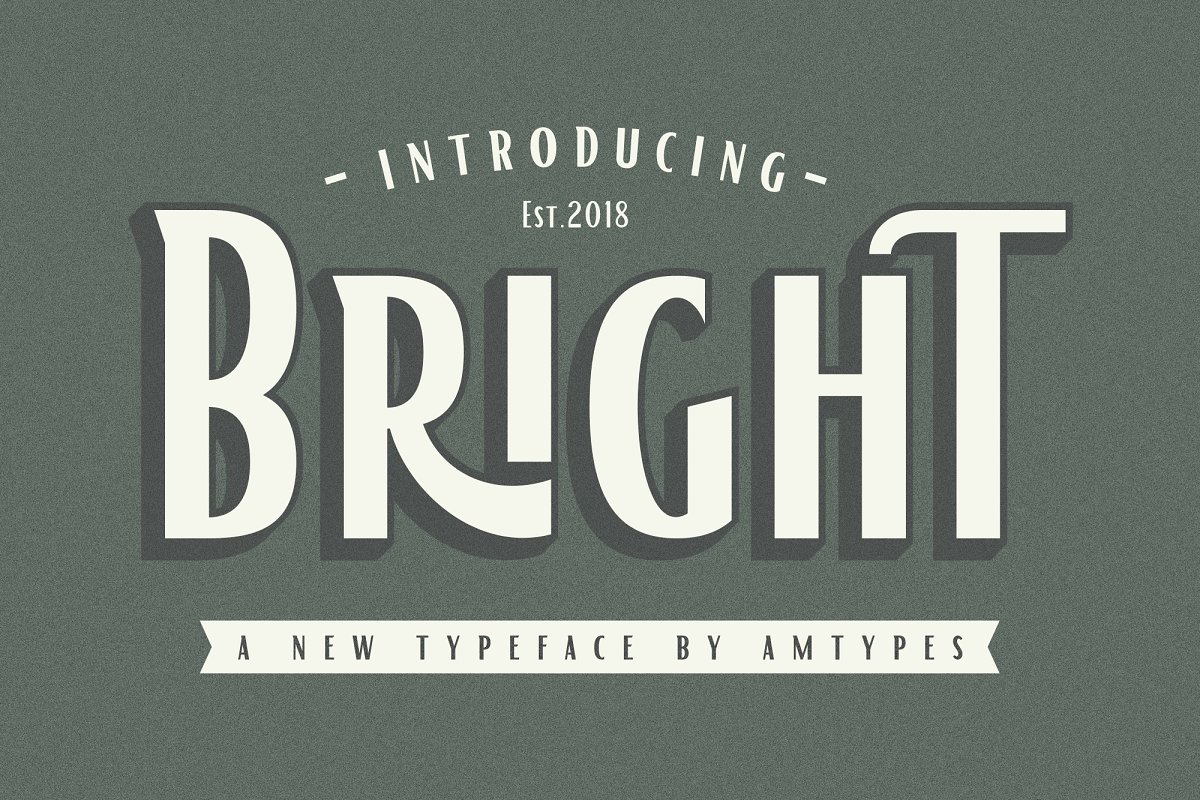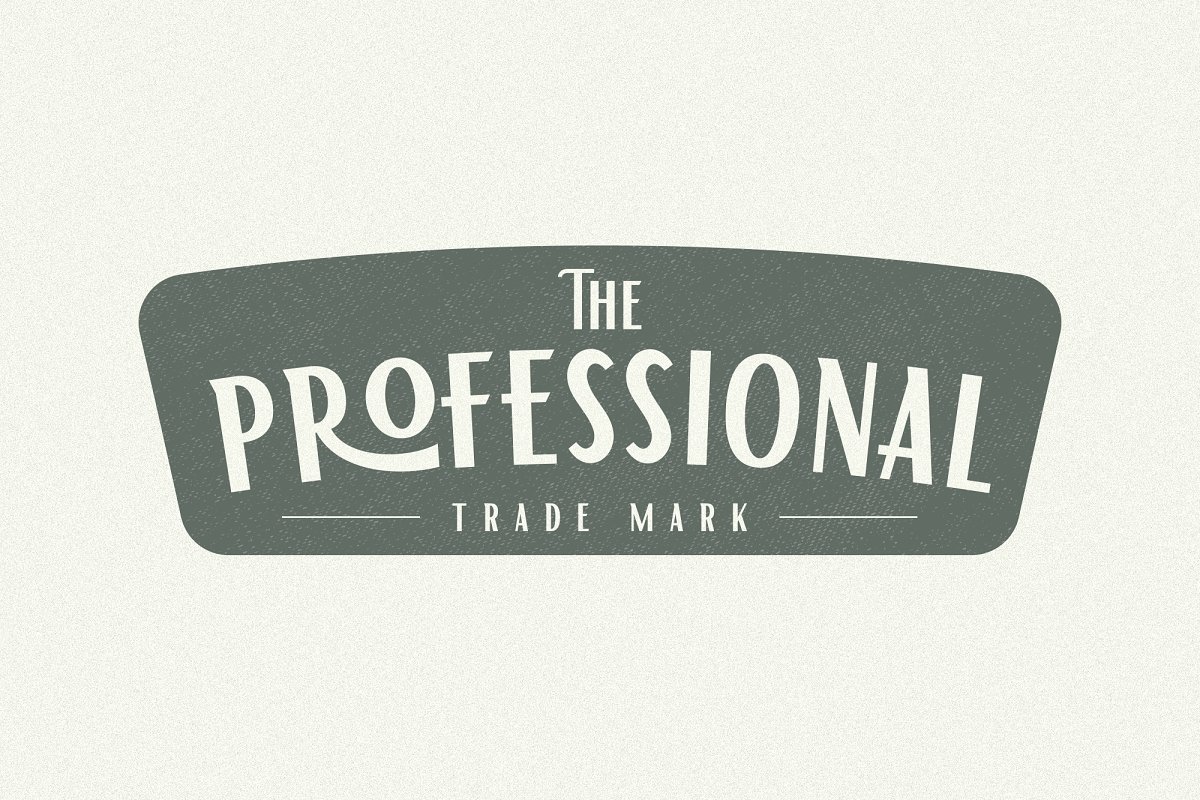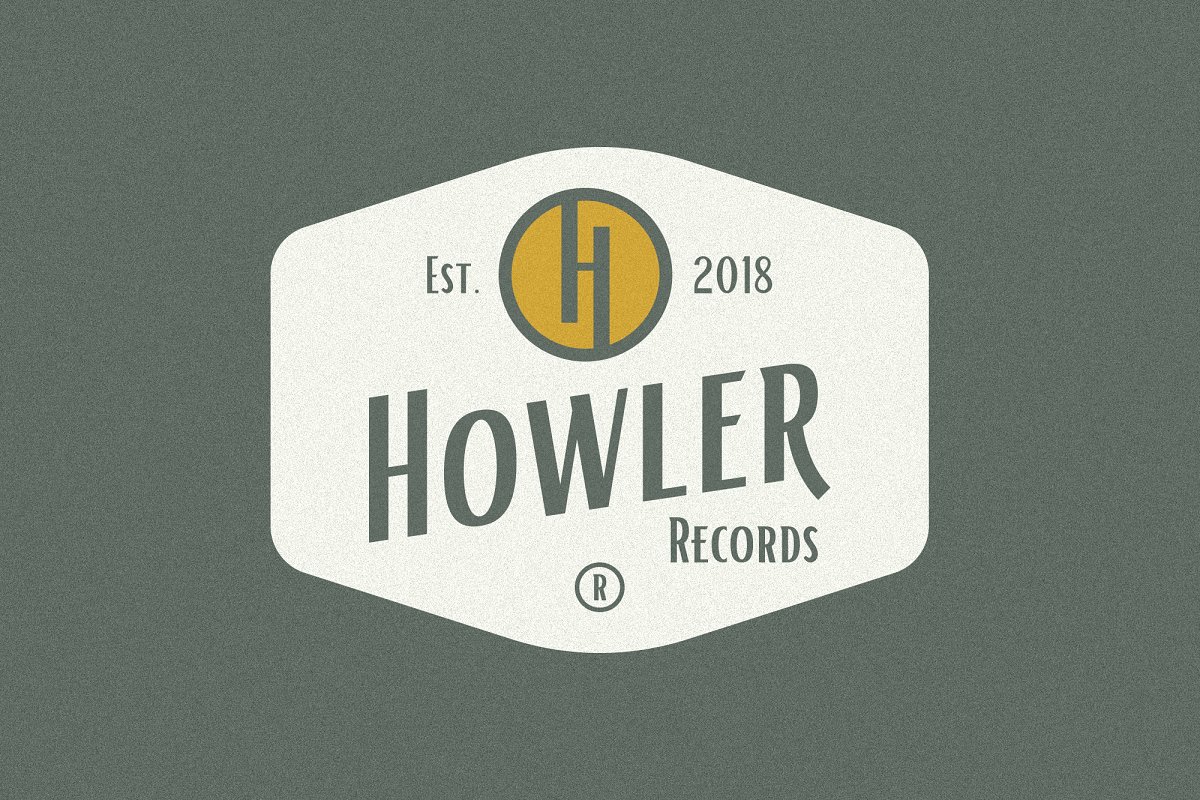
About the Bright Font
Bright is a sans serif typefaace with classic touch, This font has alternate characters, ligatures and multi language support, Bright font is perfect for the classic design logo, branding or product packaging, signage and more other creative project, In order to use alternates & ligatures you need a program that supports OpenType features such as Adobe Illustrator CS, Adobe Photoshop CC, Adobe Indesign and CorelDraw X6-X7